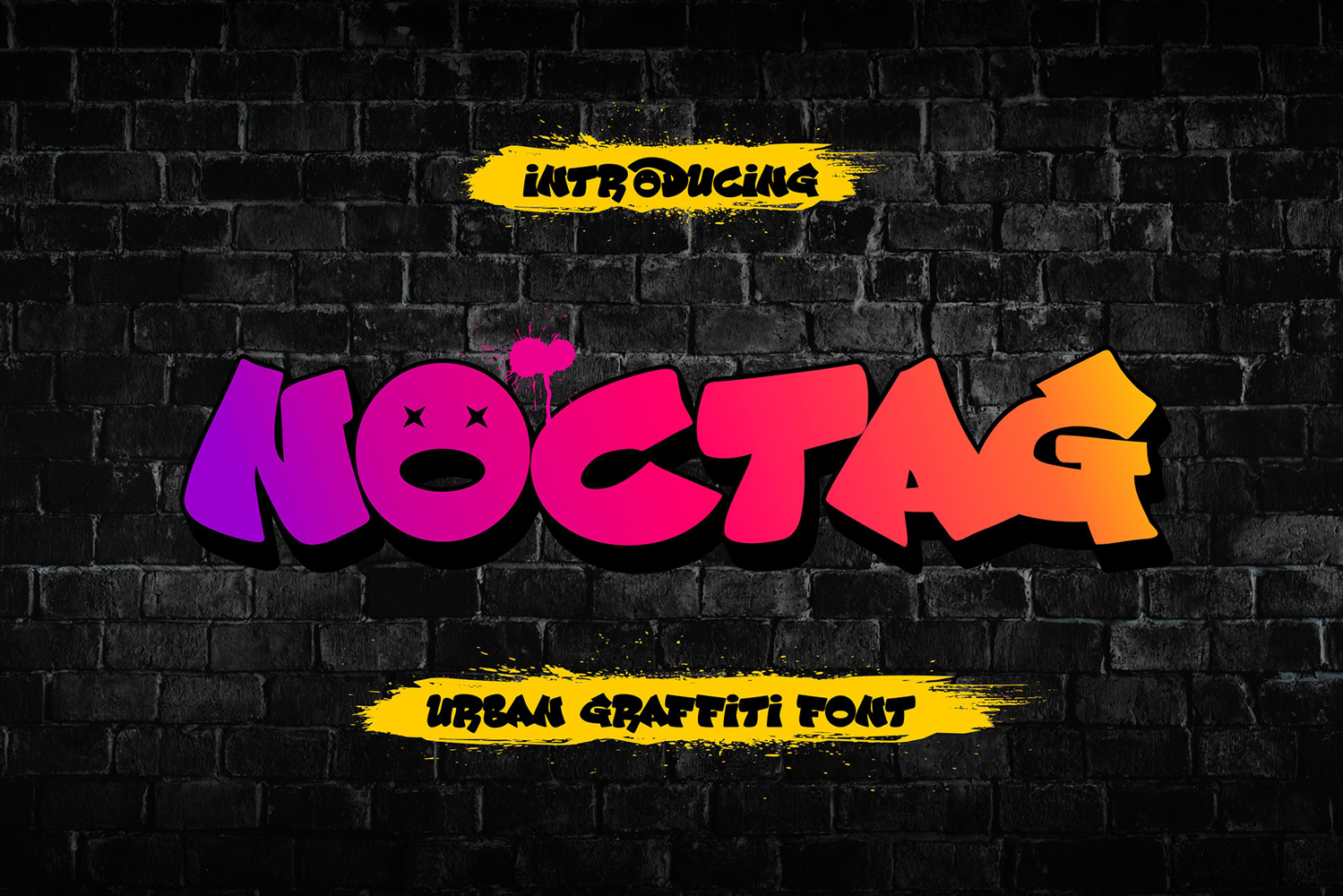
Noctag - Bold Urban Graffiti Display Typeface
This bold urban graffiti display typeface is crafted to capture the raw energy of street culture and modern graffiti art. With thick strokes, rounded forms, and expressive shapes, it brings a powerful street attitude to any design project. Perfect for designers working on streetwear branding, music artwork, gaming visuals, posters, and urban identity systems.
The letterforms balance playful graffiti aesthetics with clean digital precision, ensuring readability while maintaining a strong personality. Uppercase and lowercase characters allow flexible layout options, while numbers and punctuation complete the typographic set. Multilingual support ensures usability across international projects.
Designed primarily as a display typeface, it excels in headlines, logos, posters, and large-format applications. Whether used in print or digital media, this typeface delivers bold impact and authentic graffiti character. It is an excellent choice for creatives seeking a modern urban look that stands out in competitive visual environments.